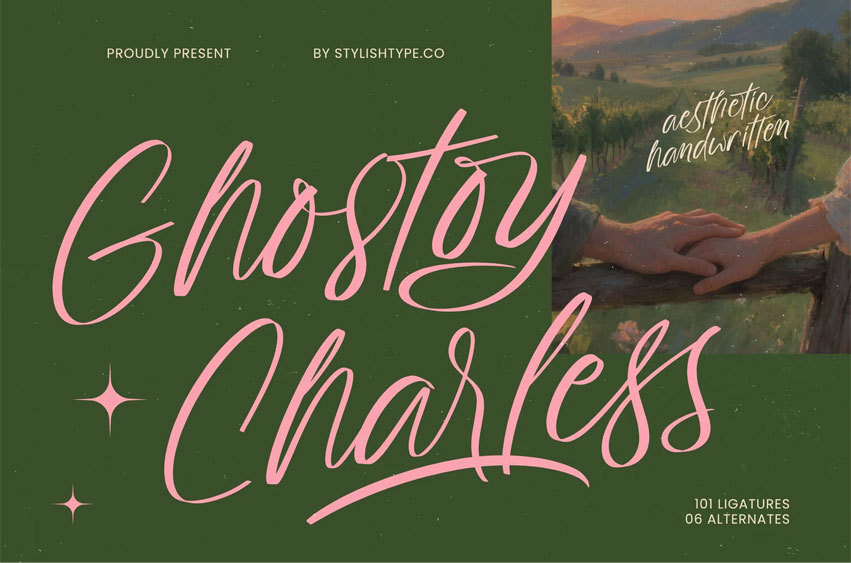
Ghostoy Charless Font
Ghostoy Charless Font Aesthetic Handwritten Elevate your creative vision with a touch of authentic elegance and timeless charm. Ghostoy Charless – Aesthetic Handwritten is a masterfully crafted sophisticated script that captures the essence of personalized artistry. Designed with an organic flow and graceful strokes, this font brings a human touch to digital canvases, making it an essential tool for designers seeking to convey intimacy and visual storytelling.
Unlock unparalleled creative flexibility with an expansive suite of features including 101 custom ligatures and unique alternates. These OpenType features ensure seamless transitions between characters, mimicking the natural rhythm of high-end calligraphy. With its extensive multilingual support, Ghostoy Charless – Aesthetic Handwritten adapts seamlessly across global markets, making it incredibly versatile for international projects and ensuring your brand message remains consistent everywhere.